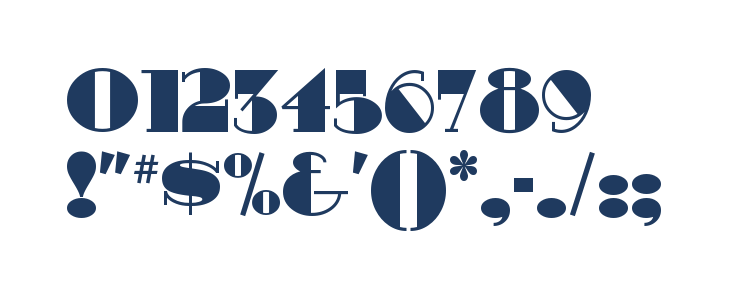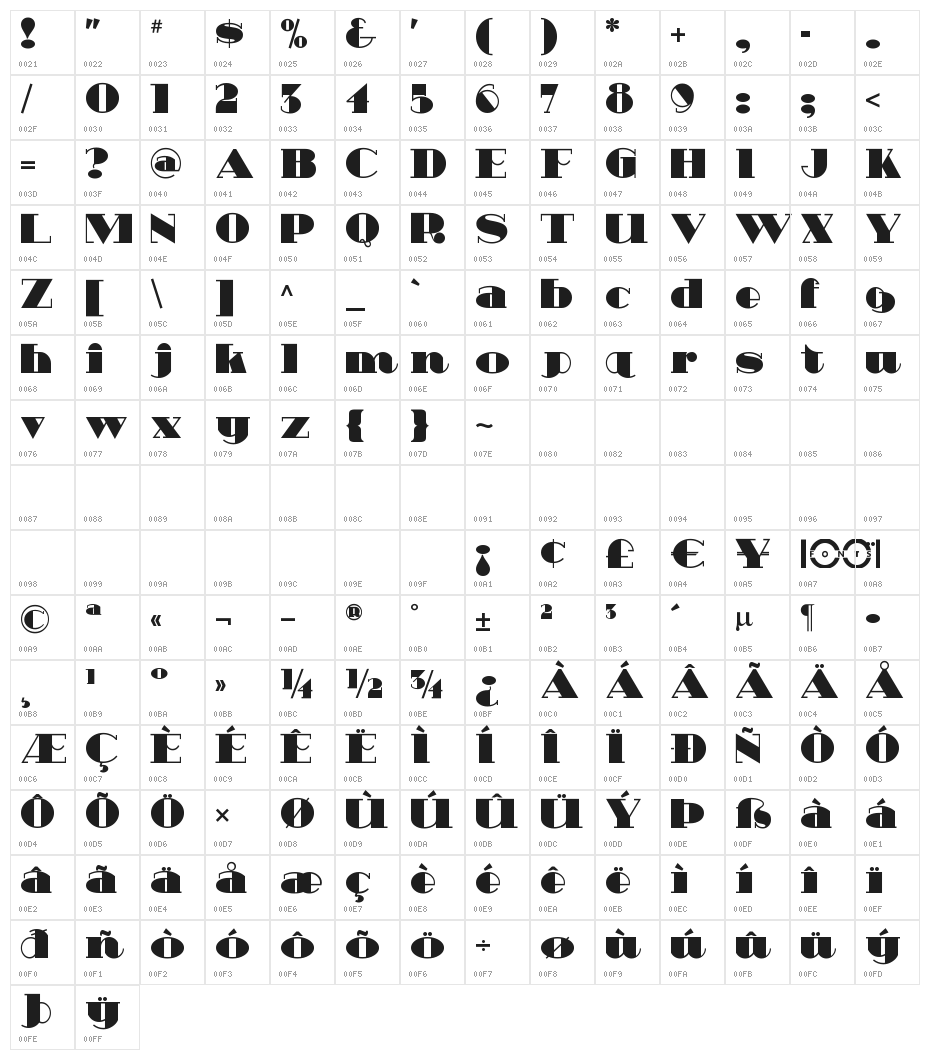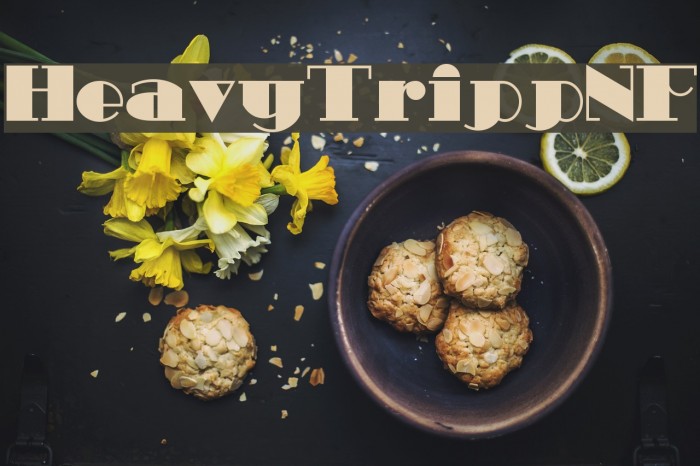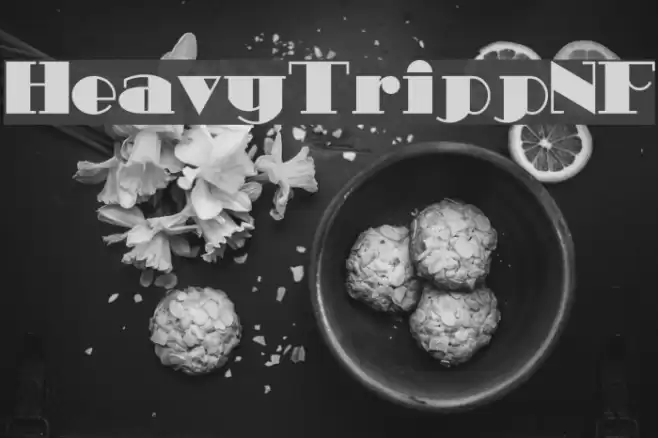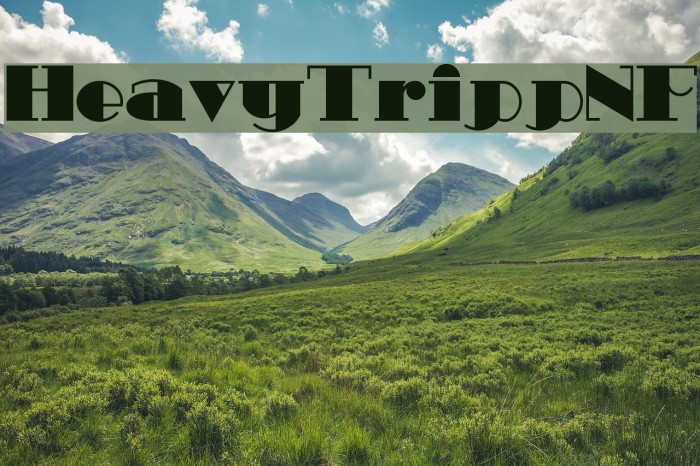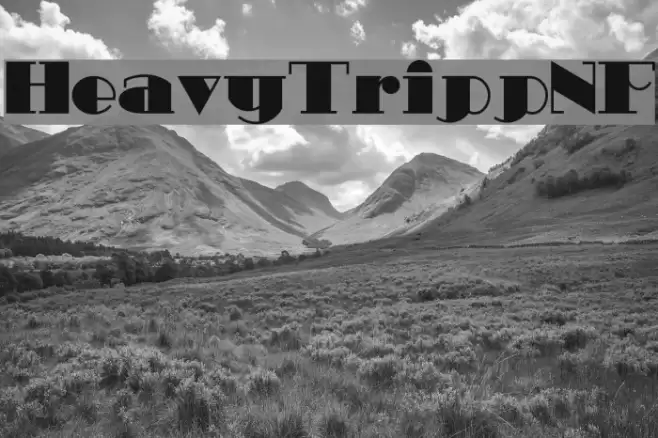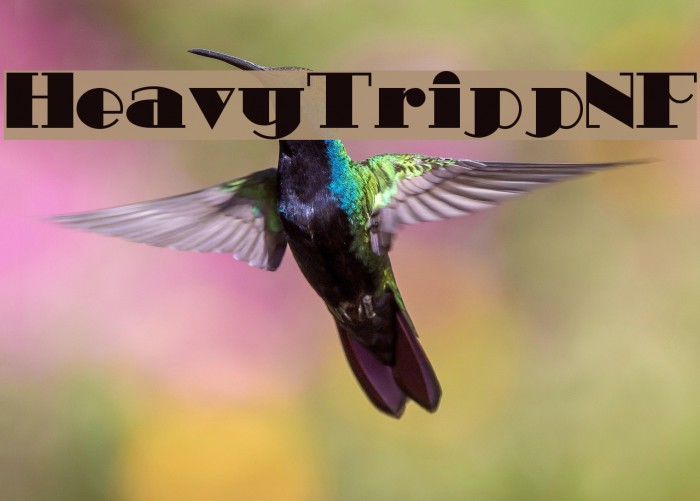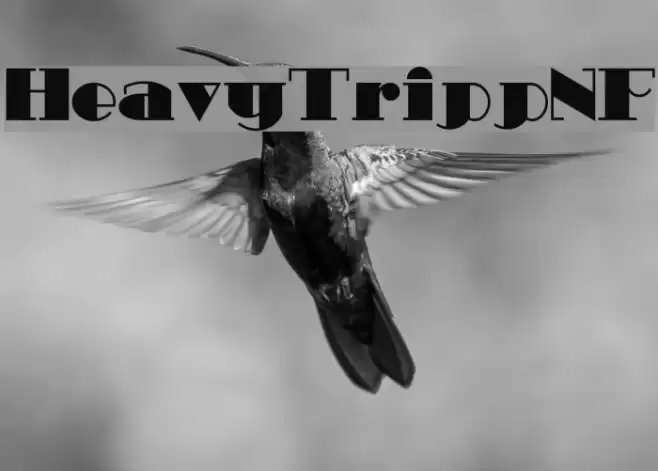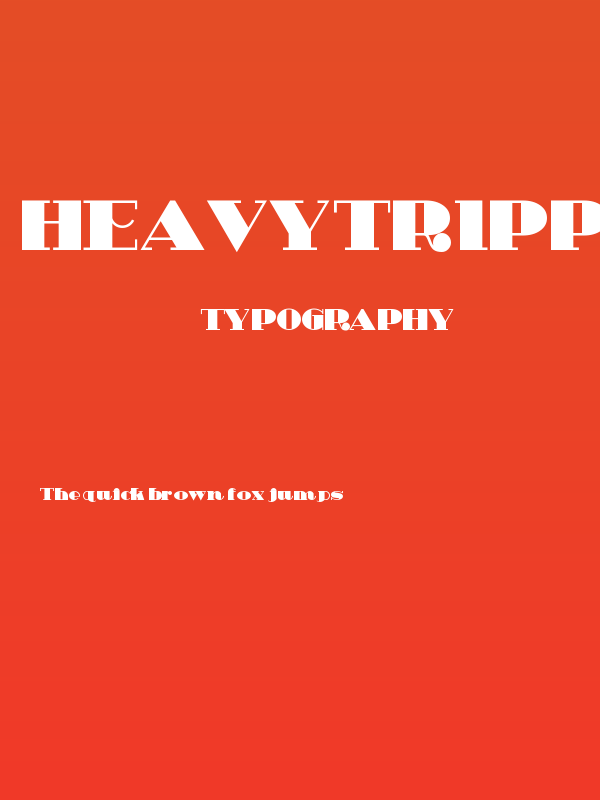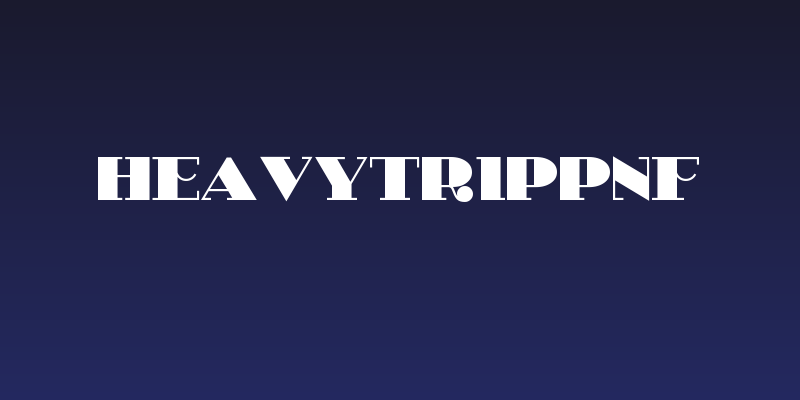
HeavyTrippNF Font
HeavyTrippNF Description
This font features a bold and striking design, characterized by its thick, heavy strokes and unique geometric shapes. The uppercase letters are particularly eye-catching, with some characters incorporating unexpected curves and angles that add a modern twist. The lowercase letters maintain a consistent weight, offering a balanced and cohesive look. Numbers and special characters are equally bold, ensuring they stand out in any composition. The overall design is both artistic and functional, making it suitable for a variety of creative projects.